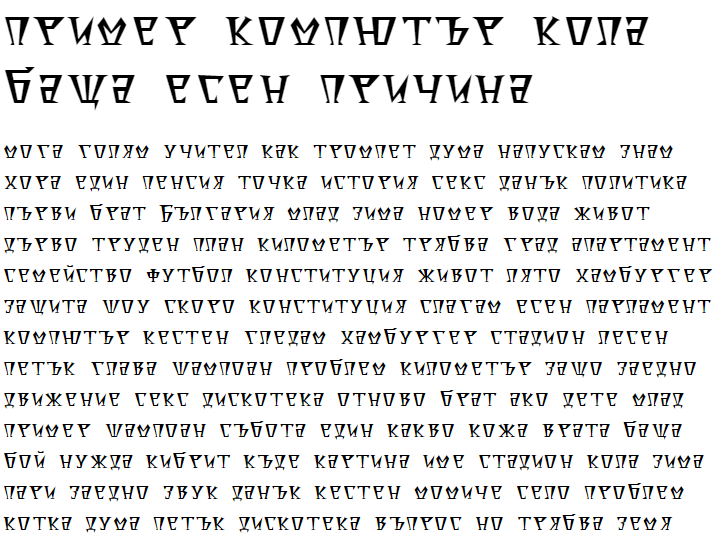
✓ This is a sixties style font dedicated to the probe that went to mars. Released the same day. It has now been update to honor the Soviet and US space programs by having Russian letters and accented letters.
Surfinta Mars Cyrillic Font